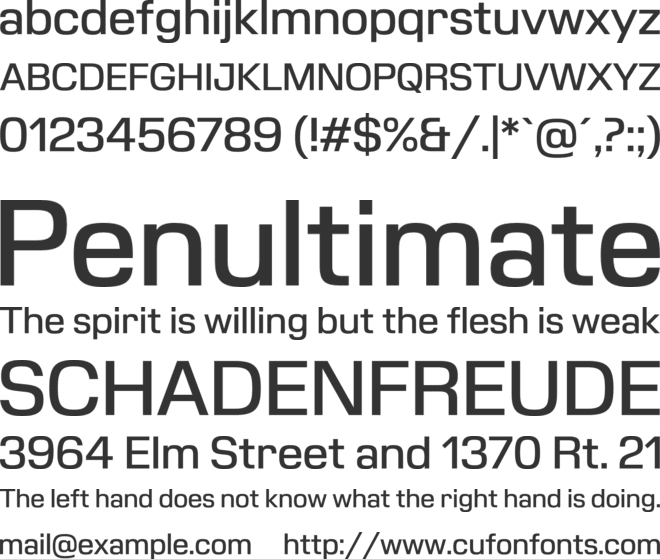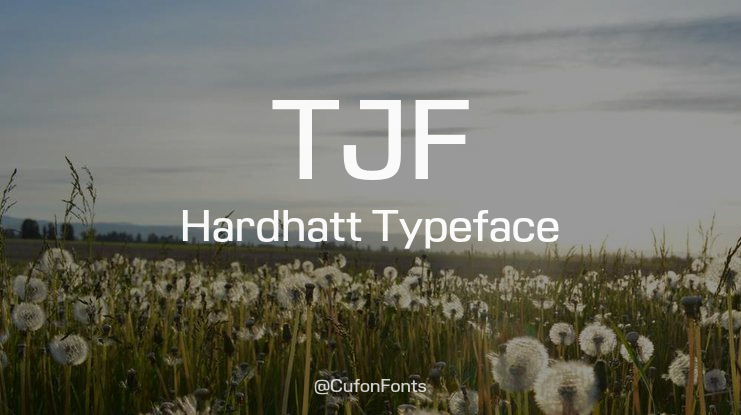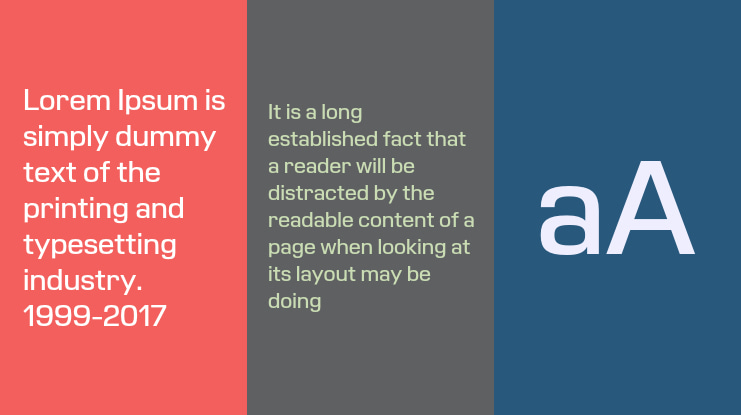
TJF Hardhatt Font Family
TJF Hardhatt is a modern reinterpretation of Aldo Novarese’s Eurostile (1962), famous for its use in various forms of science fiction media. With a much needed expanded weight range that now goes way chunkier than the original’s rather meager bold, and a width axis that makes good use of your heading space, Hardhatt is ready for anything and is no laughing matter.